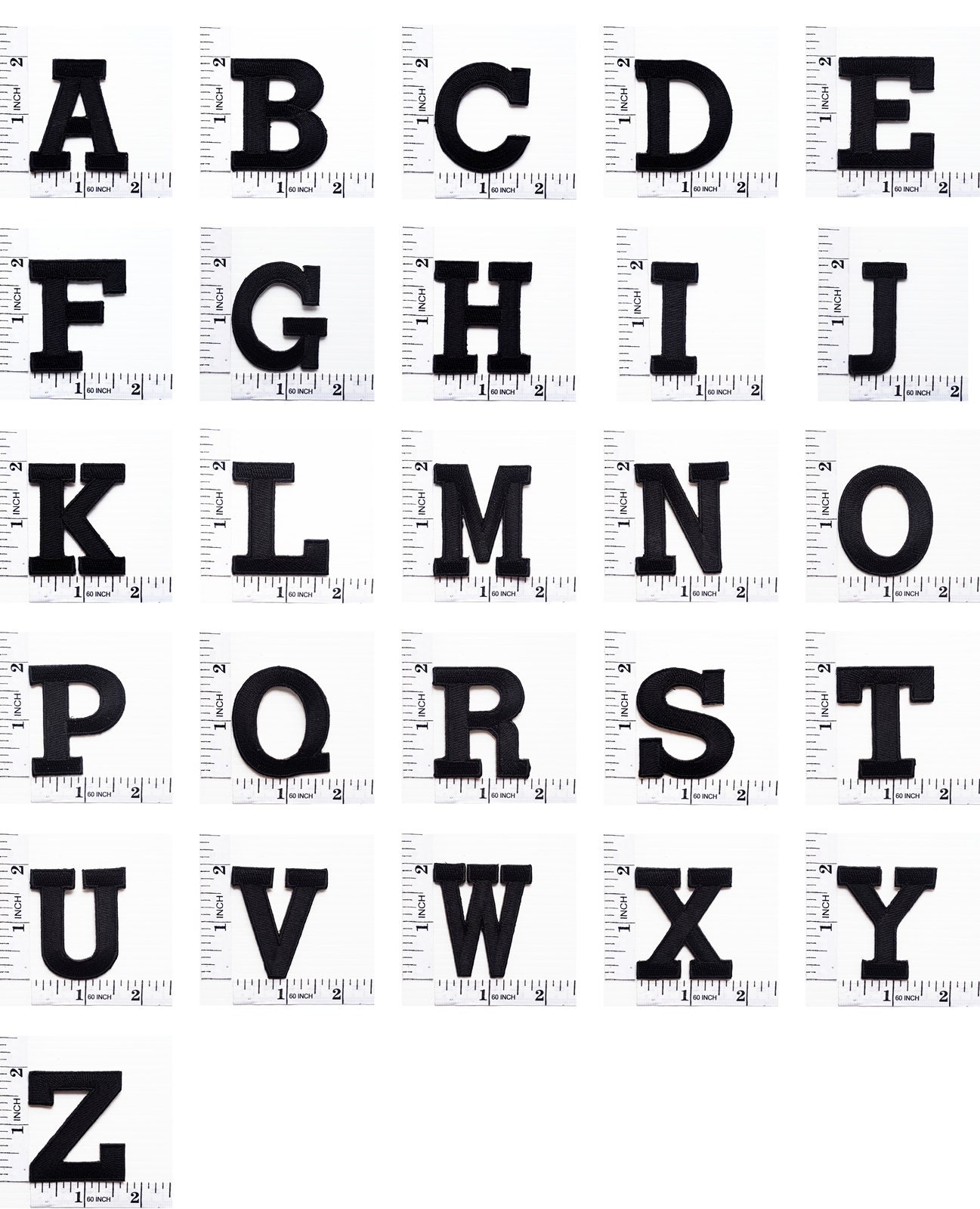
Rockwell Font Alphabet
Rockwell Font Alphabet - Web the rockwell family is available in three weights with corresponding italics, as well as a condensed version. Web rockwell is a slab serif typeface designed by the monotype corporation and released in 1934. The project was supervised by. Web do not sell or share my personal information © 2023 adobe.
Web do not sell or share my personal information © 2023 adobe. The project was supervised by. Web the rockwell family is available in three weights with corresponding italics, as well as a condensed version. Web rockwell is a slab serif typeface designed by the monotype corporation and released in 1934.
Web do not sell or share my personal information © 2023 adobe. Web rockwell is a slab serif typeface designed by the monotype corporation and released in 1934. The project was supervised by. Web the rockwell family is available in three weights with corresponding italics, as well as a condensed version.
The project was supervised by. Web rockwell is a slab serif typeface designed by the monotype corporation and released in 1934. Web the rockwell family is available in three weights with corresponding italics, as well as a condensed version. Web do not sell or share my personal information © 2023 adobe.
Web do not sell or share my personal information © 2023 adobe. Web the rockwell family is available in three weights with corresponding italics, as well as a condensed version. Web rockwell is a slab serif typeface designed by the monotype corporation and released in 1934. The project was supervised by.
The project was supervised by. Web the rockwell family is available in three weights with corresponding italics, as well as a condensed version. Web rockwell is a slab serif typeface designed by the monotype corporation and released in 1934. Web do not sell or share my personal information © 2023 adobe.
Web rockwell is a slab serif typeface designed by the monotype corporation and released in 1934. The project was supervised by. Web the rockwell family is available in three weights with corresponding italics, as well as a condensed version. Web do not sell or share my personal information © 2023 adobe.
The project was supervised by. Web do not sell or share my personal information © 2023 adobe. Web the rockwell family is available in three weights with corresponding italics, as well as a condensed version. Web rockwell is a slab serif typeface designed by the monotype corporation and released in 1934.
Web rockwell is a slab serif typeface designed by the monotype corporation and released in 1934. Web do not sell or share my personal information © 2023 adobe. The project was supervised by. Web the rockwell family is available in three weights with corresponding italics, as well as a condensed version.
Web the rockwell family is available in three weights with corresponding italics, as well as a condensed version. The project was supervised by. Web rockwell is a slab serif typeface designed by the monotype corporation and released in 1934. Web do not sell or share my personal information © 2023 adobe.
Web the rockwell family is available in three weights with corresponding italics, as well as a condensed version. Web do not sell or share my personal information © 2023 adobe. The project was supervised by. Web rockwell is a slab serif typeface designed by the monotype corporation and released in 1934.
The project was supervised by. Web do not sell or share my personal information © 2023 adobe. Web rockwell is a slab serif typeface designed by the monotype corporation and released in 1934. Web the rockwell family is available in three weights with corresponding italics, as well as a condensed version.
Web the rockwell family is available in three weights with corresponding italics, as well as a condensed version. The project was supervised by. Web rockwell is a slab serif typeface designed by the monotype corporation and released in 1934. Web do not sell or share my personal information © 2023 adobe.
Web the rockwell family is available in three weights with corresponding italics, as well as a condensed version. The project was supervised by. Web rockwell is a slab serif typeface designed by the monotype corporation and released in 1934.